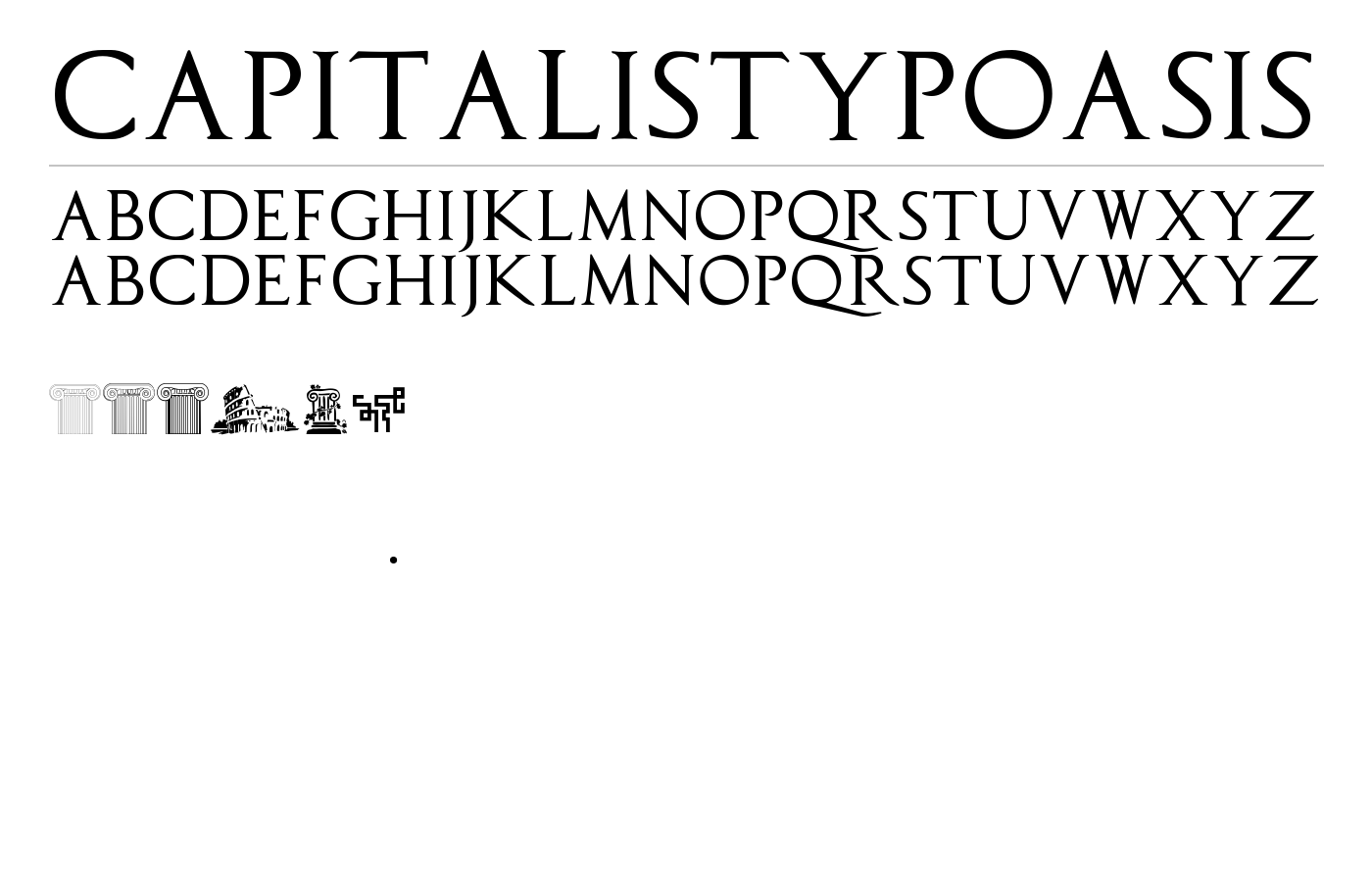
CapitalisTypOasis is a refined serif font with a classic, elegant feel reminiscent of Roman inscriptions. It features clean, slender letterforms with moderate stroke contrast and distinctive flared serifs, giving it a timeless and sophisticated look. Ideal for luxury branding, formal editorial layouts, and elegant headlines, this font conveys a sense of tradition and grandeur with clarity and style.
CapitalisTypOasis Font
About CapitalisTypOasis Font